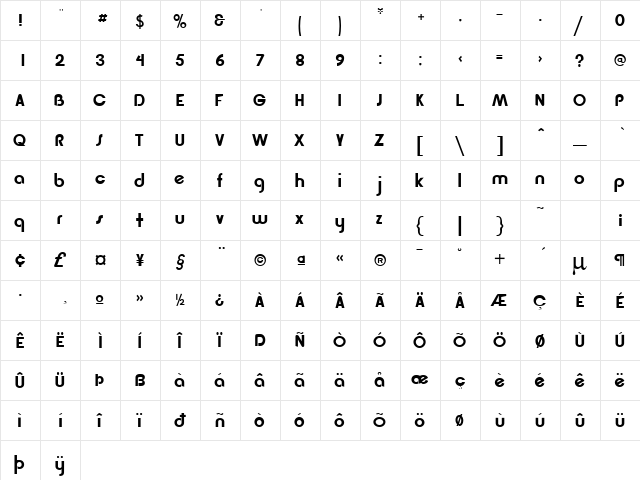
Sunnyvale Normal
Design Context for Sunnyvale Typeface
Sunnyvale is a composed and adaptable typeface that performs quietly and consistently across a wide range of design contexts.